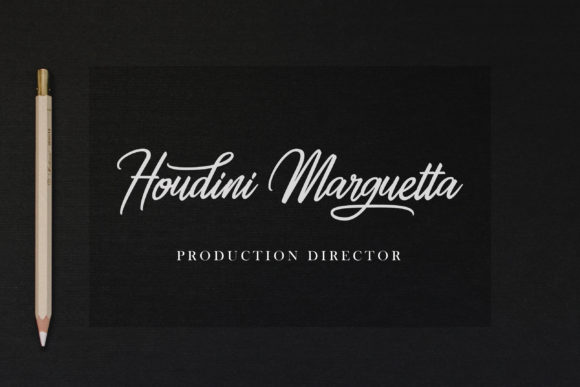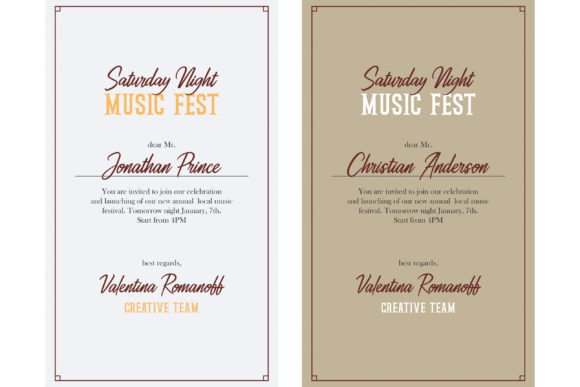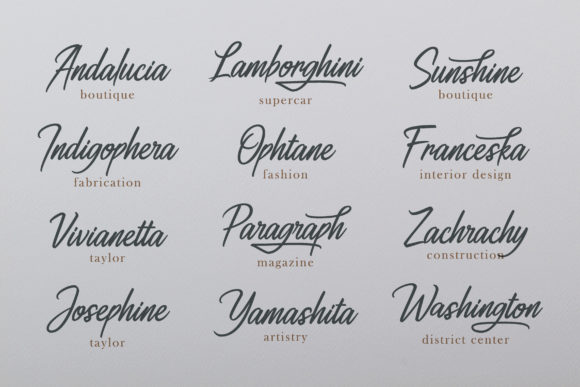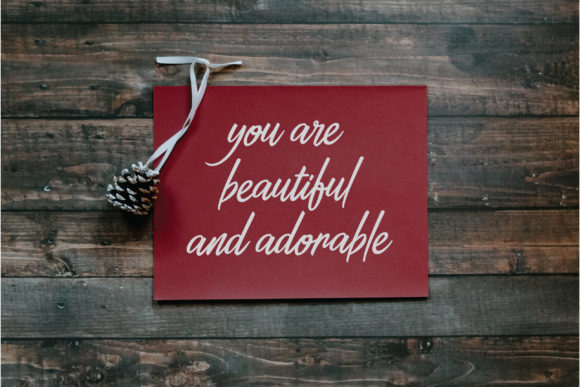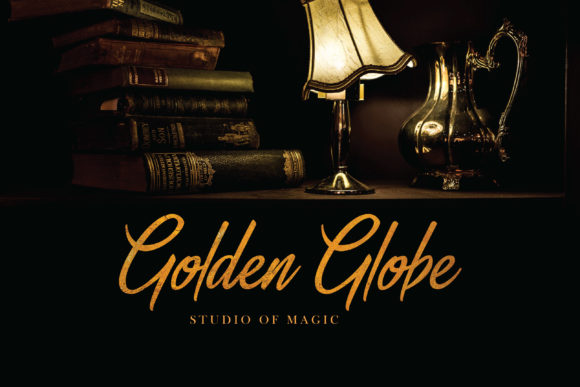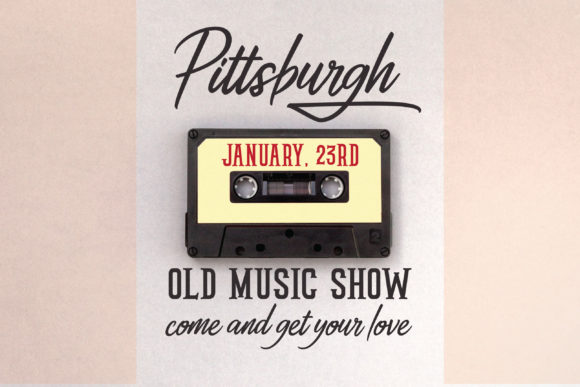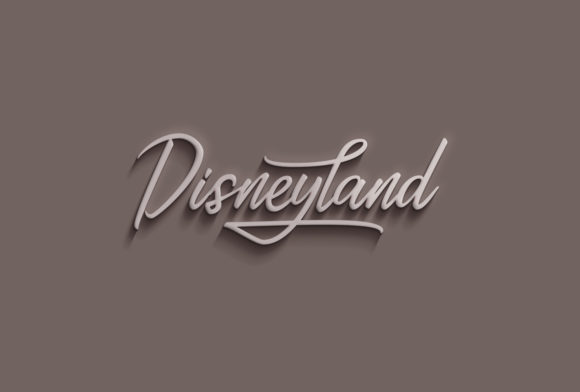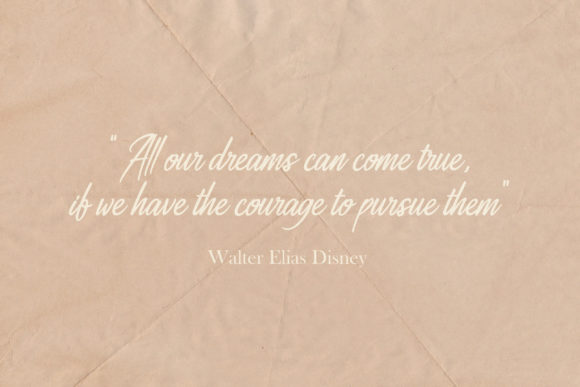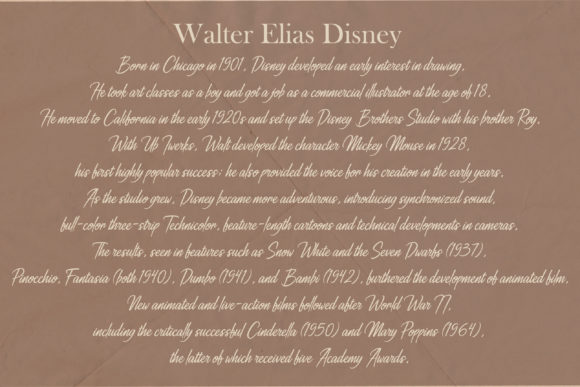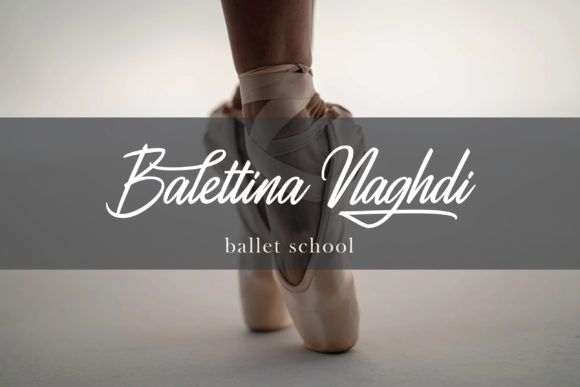
Ahtohalland Font
About Ahtohalland Font
Ahtohalland is an elegant and beautiful script font that’s great for adding that authentic vibe to your next design project.